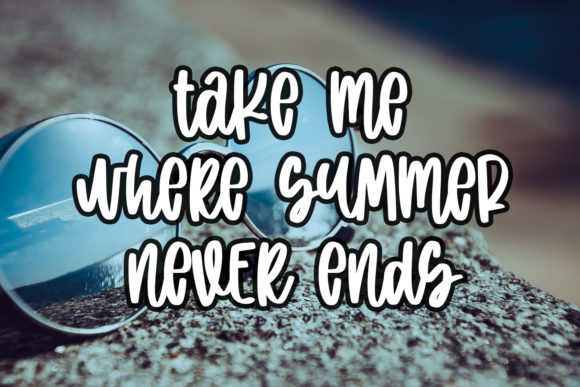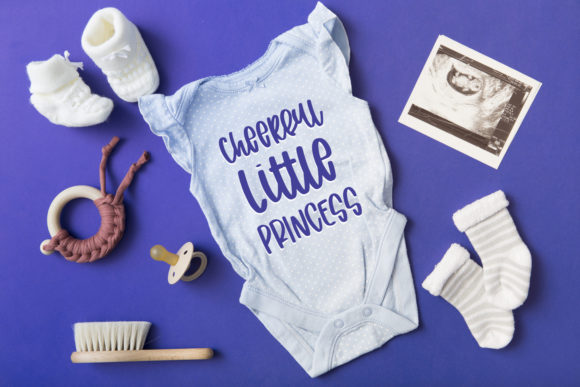
Sweet Doughnut Font
db-ku.com - Script & Handwritten -- Sweet Doughnut is a quirky and casual handwritten font. Get inspired by its incredibly versatile style and use it to create joyful designs!